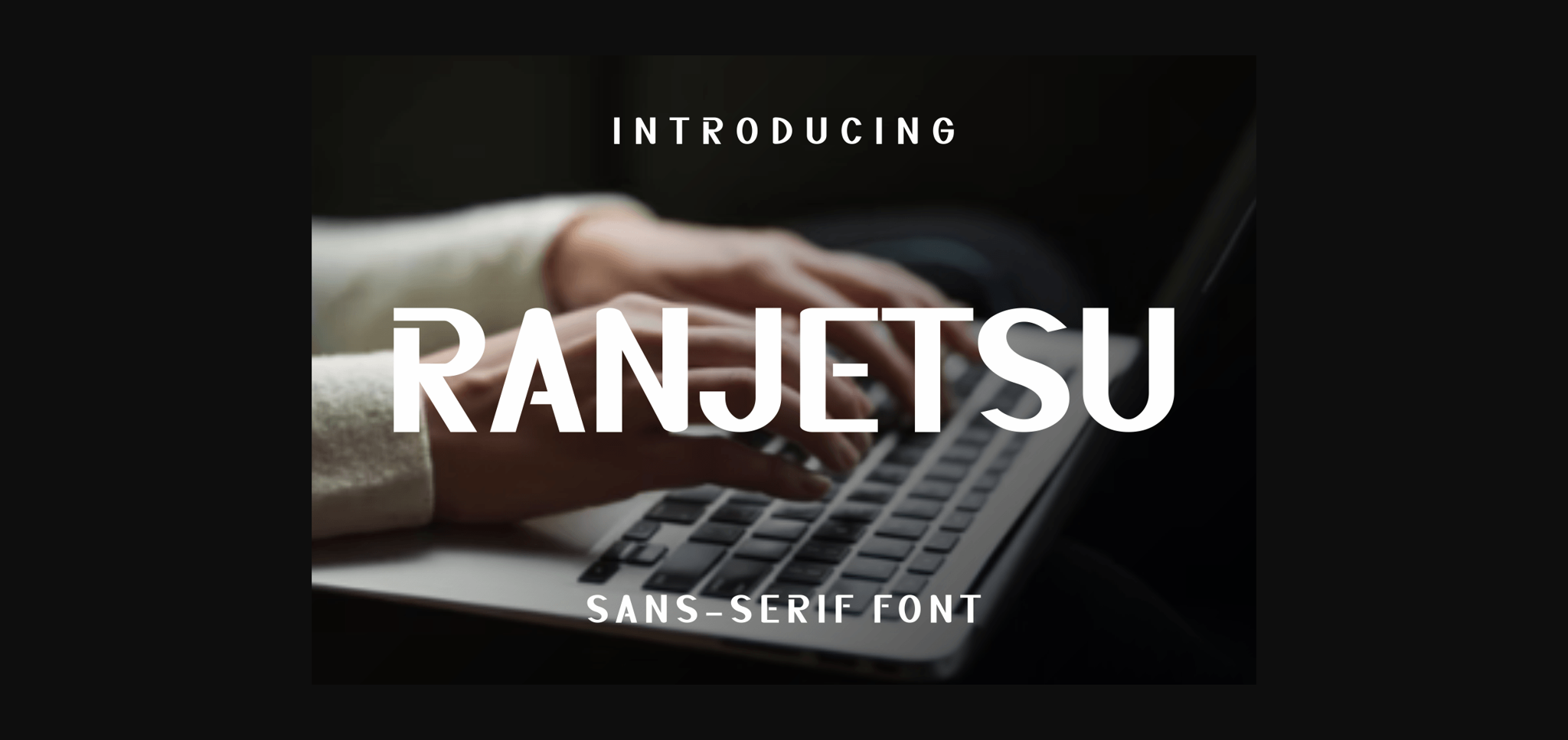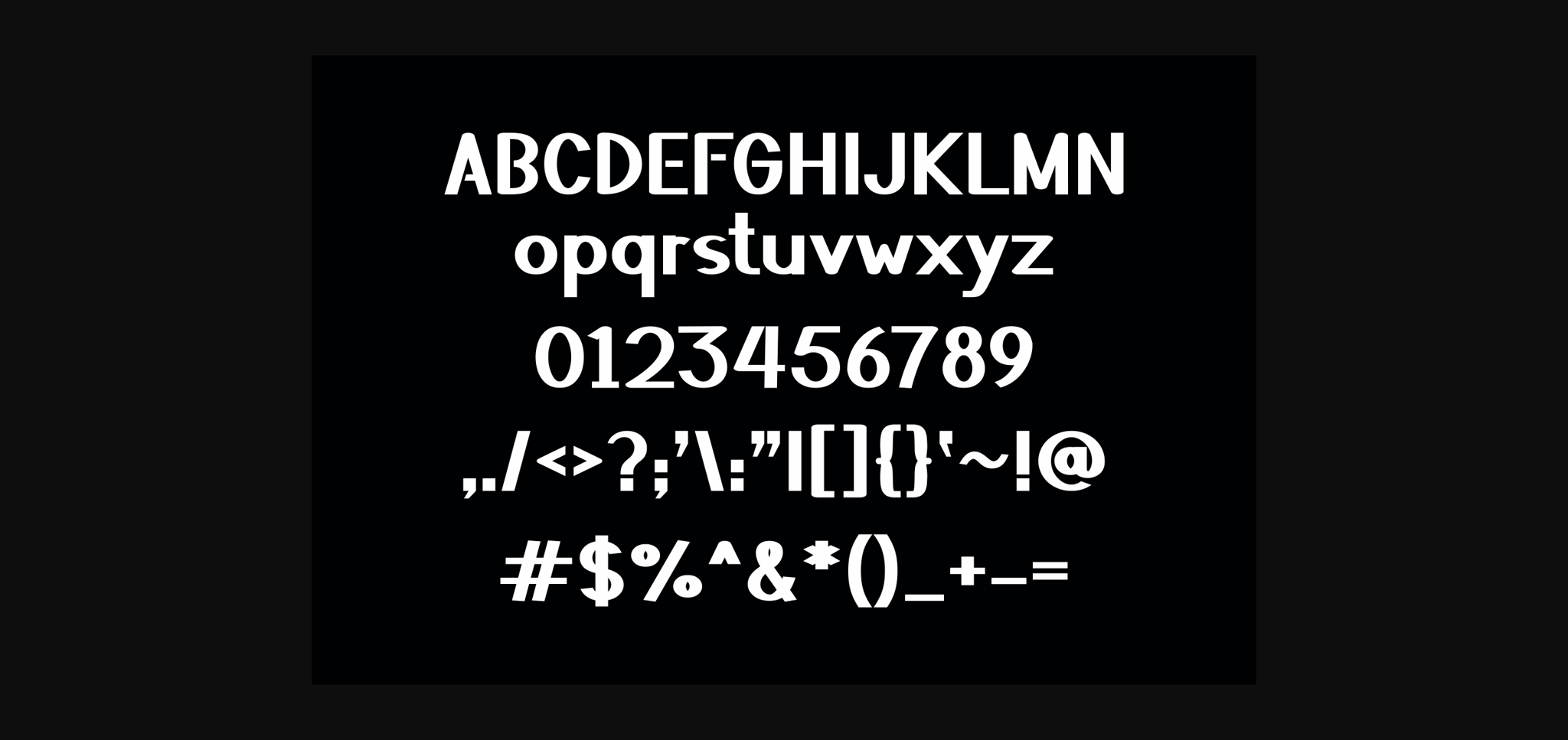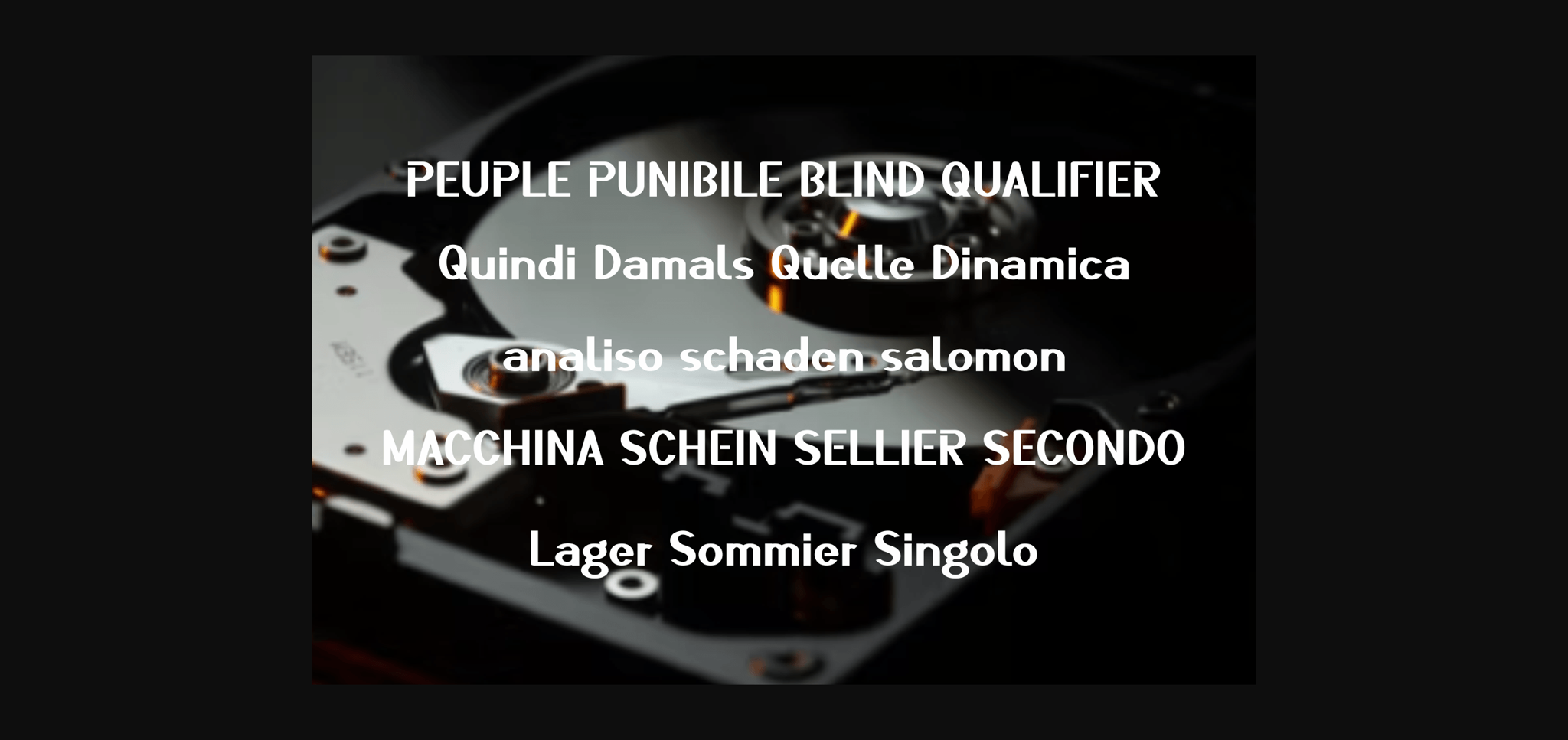
HomeSans Serif FontsRanjetsu Font Sans Serif Fonts Ranjetsu Font FacebookXPinterestWhatsApp 1 of 5 ... Ranjetsu Font Poster 2... Ranjetsu Font Poster 3... Ranjetsu Font Poster 4... Ranjetsu Font Poster 5... About Ranjetsu Font Ranjetsu is a cool and modern sans serif font. No matter the topic, this font will be an incredible asset to your fonts’ library, as it has the potential to elevate any creation. DOWNLOAD NOW People also explored Stamp Font San Meltianne Font Readfaster Font Mama Papa Font Neon:Ness Font Matriks Font Halloween Ghost Font Better Rounded Scrip Font Daylight Font 332 0 TagsRanjetsu Font Previous articleRankuy FontNext articleParmes Font LEAVE A REPLY Cancel reply Comment: Please enter your comment! Name:* Please enter your name here Email:* You have entered an incorrect email address! Please enter your email address here Website: Save my name, email, and website in this browser for the next time I comment. Personal Use Free Frozdotre Personal Use Free Read more about this font Hagia Signal Personal Use Free Read more about this font Squariess Personal Use Free Read more about this font Marthissa Personal Use Free Read more about this font BLOG How to Cut Any Font on Cricut: Convert a Font to SVG (Free) Turn any font into a clean SVG so it cuts crisp on Cricut - a quick 3-step workflow using a free font-to-SVG tool. Where to Buy American Fonts Online in 2024 Fonts That Capture the Spirit of New York City Best Fonts for YouTube Videos: Make Your Thumbnails Stand Out